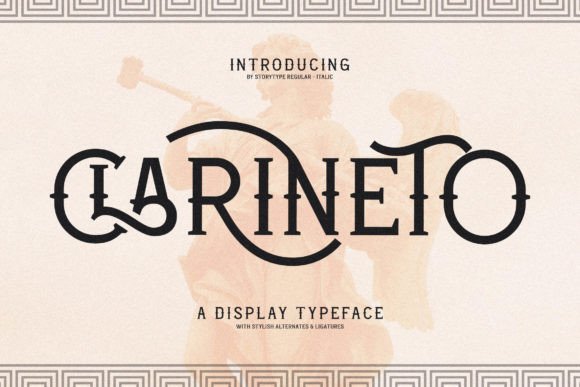
Introduction to Clarineto Font
Clarineto is a stylish and elegant serif font.
Its distinct form and appearance aim to give more style to your classic, vintage, and retro-themed designs as well as projects .
Key Features of Clarineto Font